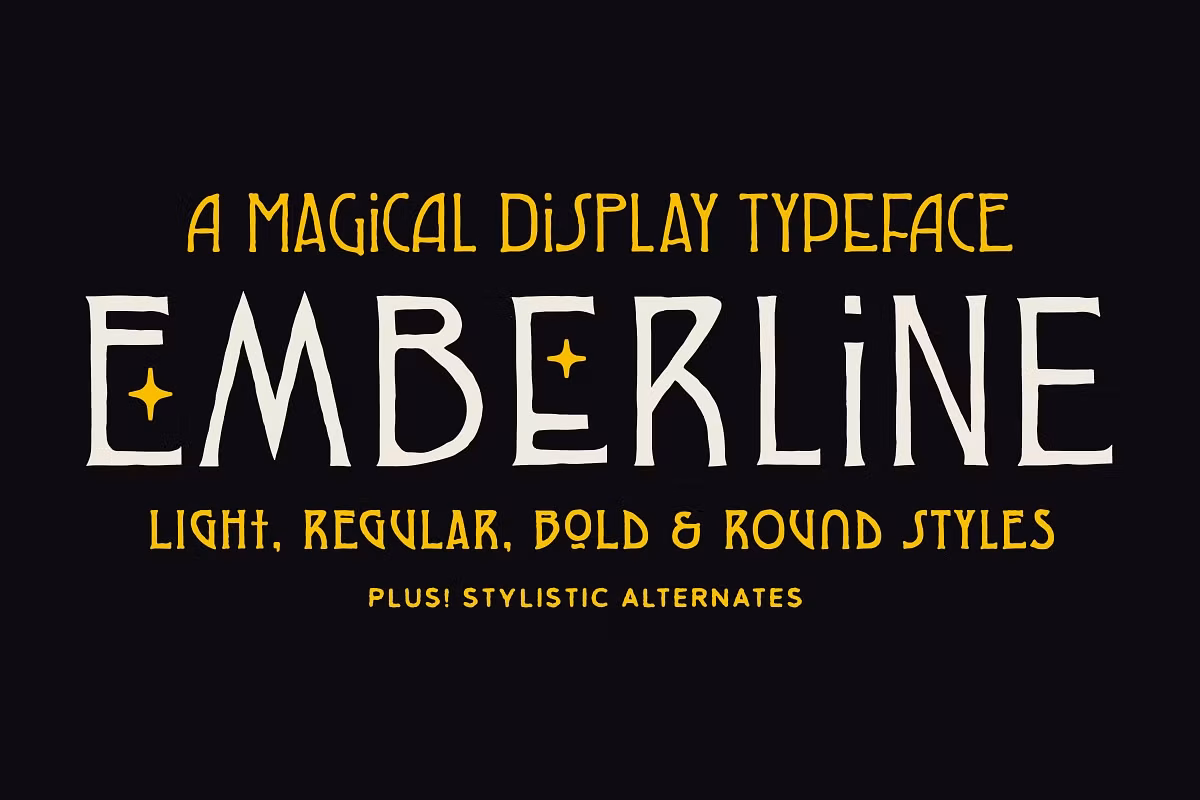
Emberline - A Witchy Display Font Free Download
Emberline – A Witchy Display Font Free Download
Emberline – A Witchy Display Font Free Download is a mystical and enchanting typeface crafted to bring magic and mystery into your designs. With whimsical curves, gothic-inspired strokes, and a handcrafted feel, Emberline is perfect for Halloween graphics, fantasy book covers, spellbinding posters, mystical branding, and occult-themed merchandise.
This font radiates spooky charm and ethereal elegance, making Emberline – A Witchy Display Font Free Download ideal for projects that need to feel otherworldly, magical, or just a little eerie. It’s great for both digital and print use, and it shines when used in titles, headings, or decorative accents.